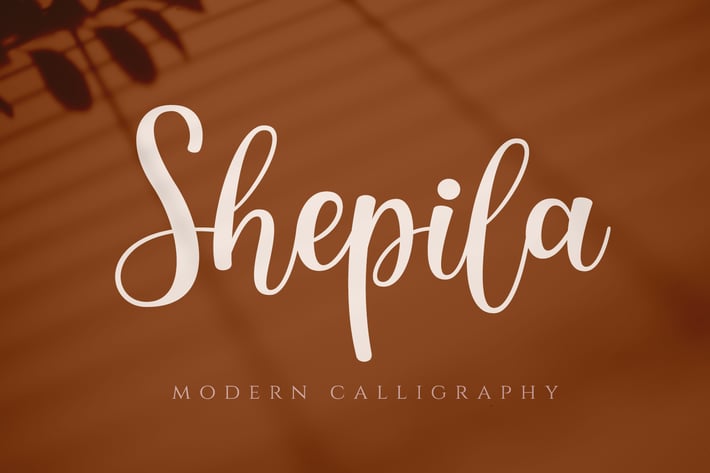
Shepila - Pretty Script Font
Shepila is a beautiful modern and elegant calligraphy script font. Bravely will work perfectly for wedding, fashion, brands, blogs, boutiques or any business that wants to appear upscale and pretty.
- Uppercase & Lowercase
- Standard Ligatures
- Contextual Alternates
- Numerals & Punctuations (OpenType Standard)
- Multilingual characters (AÀÁÂÃÄÅÇEÈÉÊËIÌÍÎÏNÑOØÒÓÔÕÖUÙÜÚÛÝŸŠŽÆŒß)